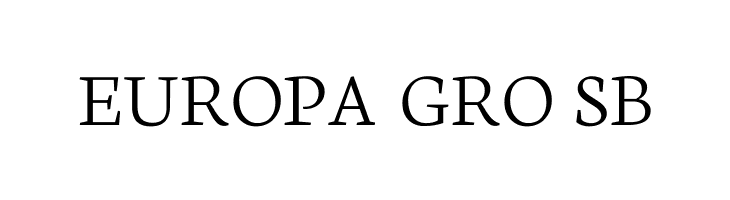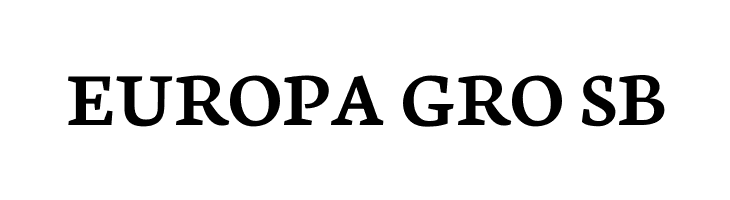
A refined serif typeface with thin strokes and a modern elegance.
A light, elegant serif font with moderate contrast and rounded serifs.
A modern serif font with elegant, readable characters and balanced proportions.